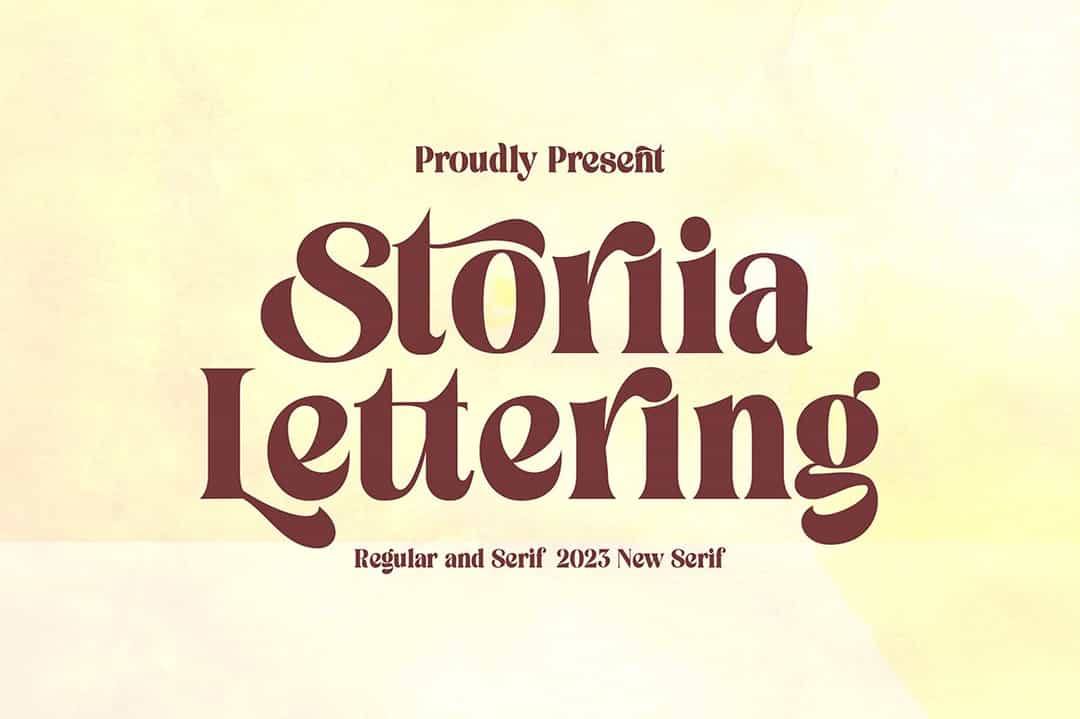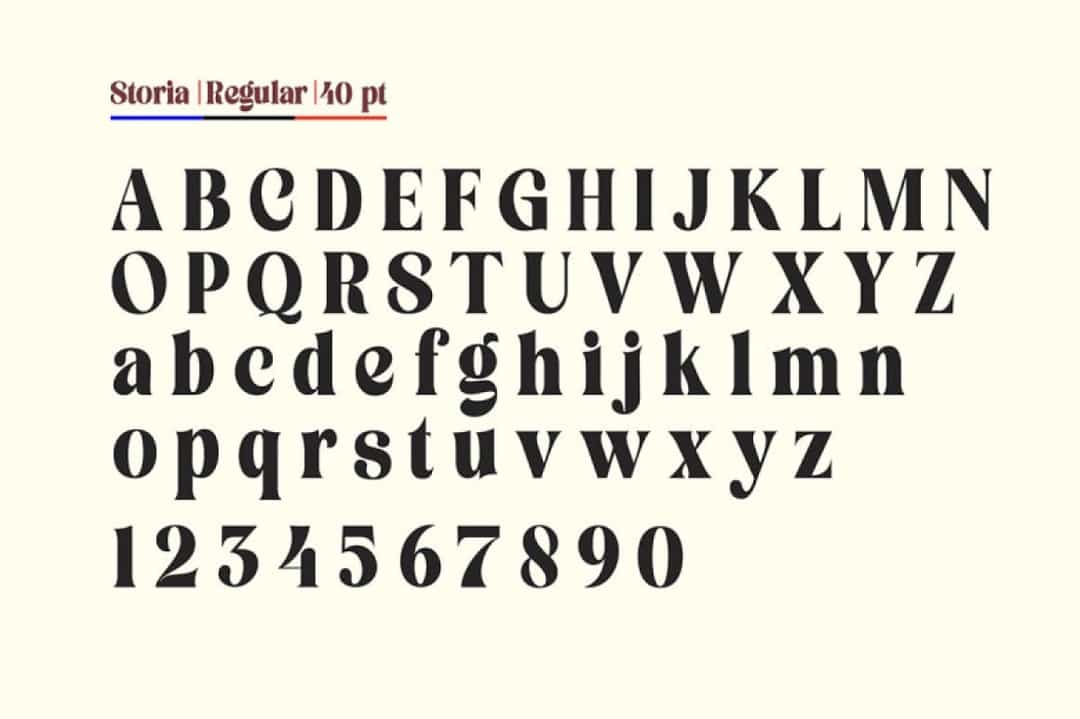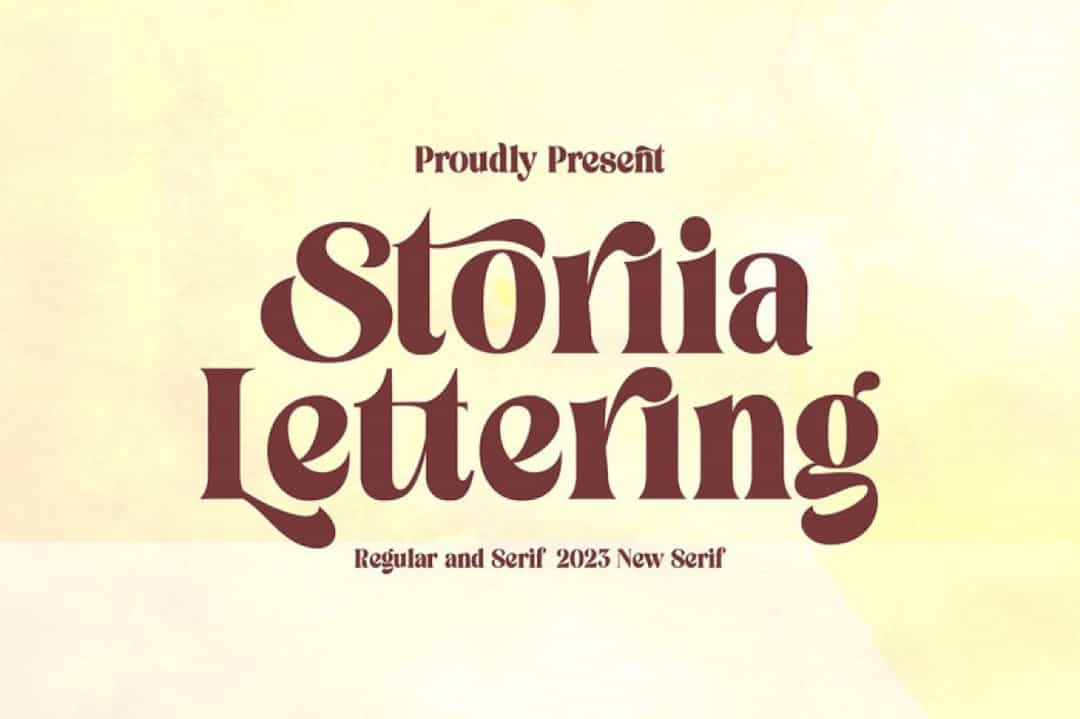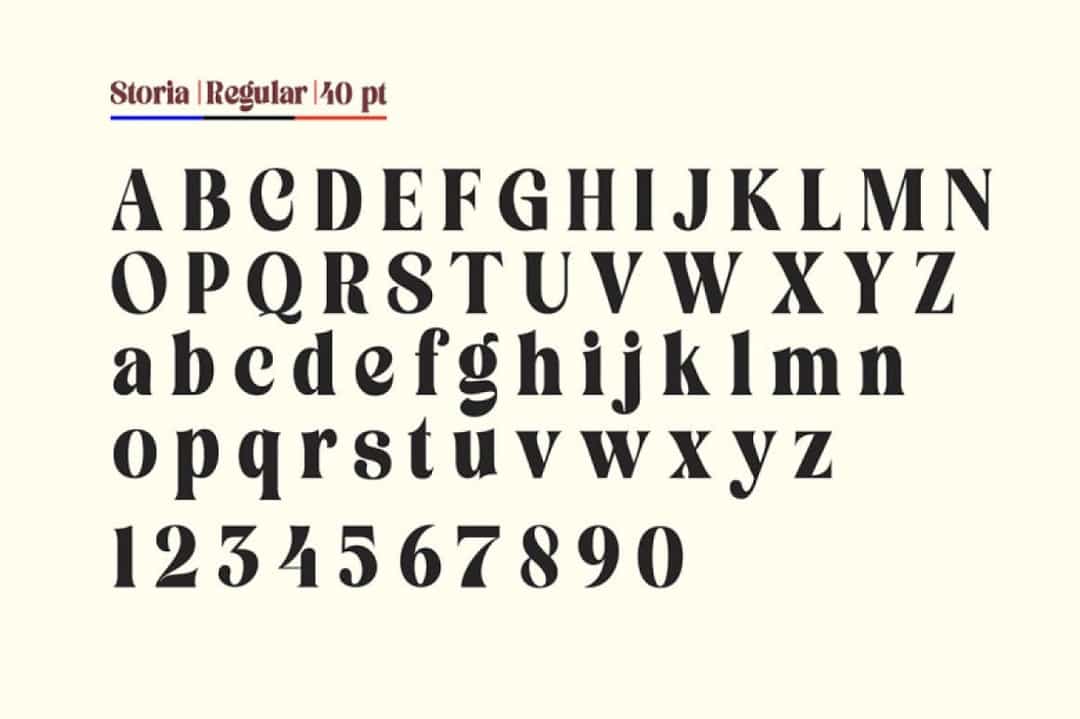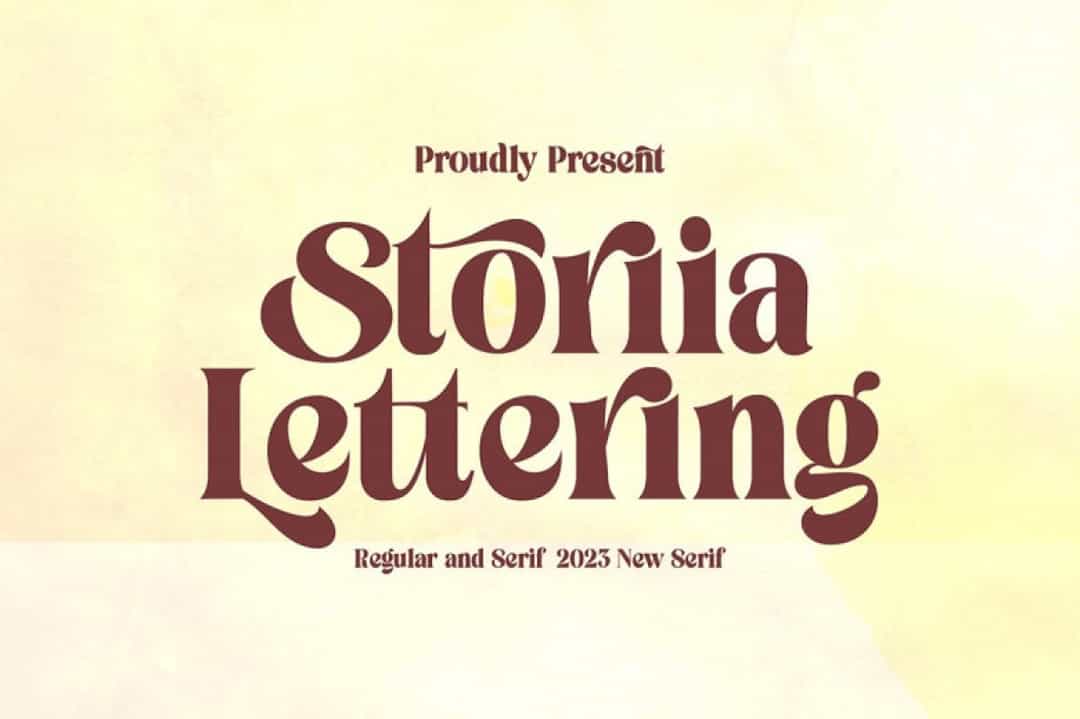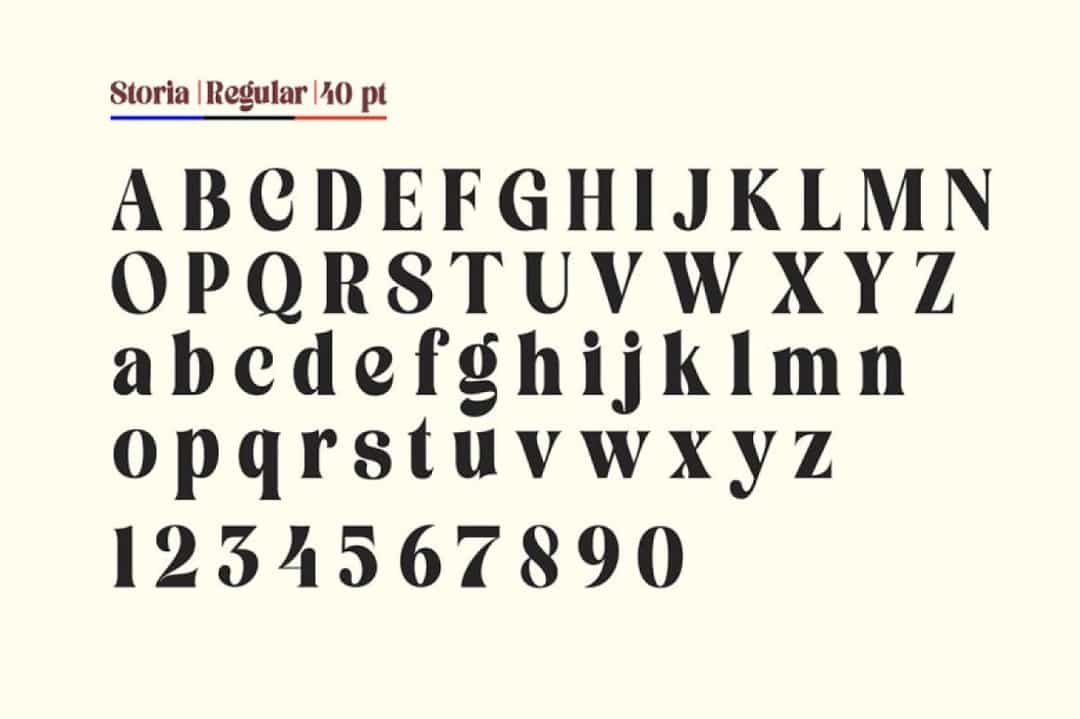
Storia The Lettering Serif Style font can serve as a striking and clean heading for editorial use, ideal for web, editorial posters, T-shirt printings and magazine covers. With italic and upright styles easily applied for various applications – this striking typeface’s striking and clean appearance make it the perfect fit.